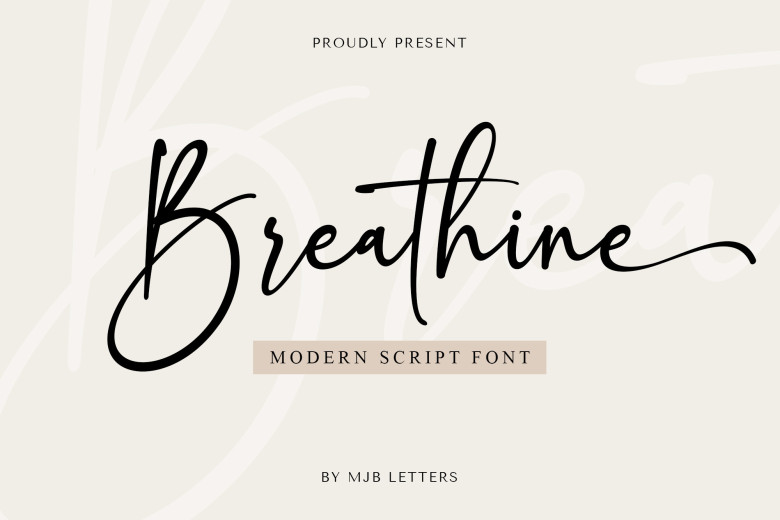
Breathine Font
Breathine is a modern handwritten font with stylish looks ideal for adding a chic touch to websites, wedding stationery and modern logos. This font will complement any theme of personal branding or social media quotes.
Breathine Handwritten Font